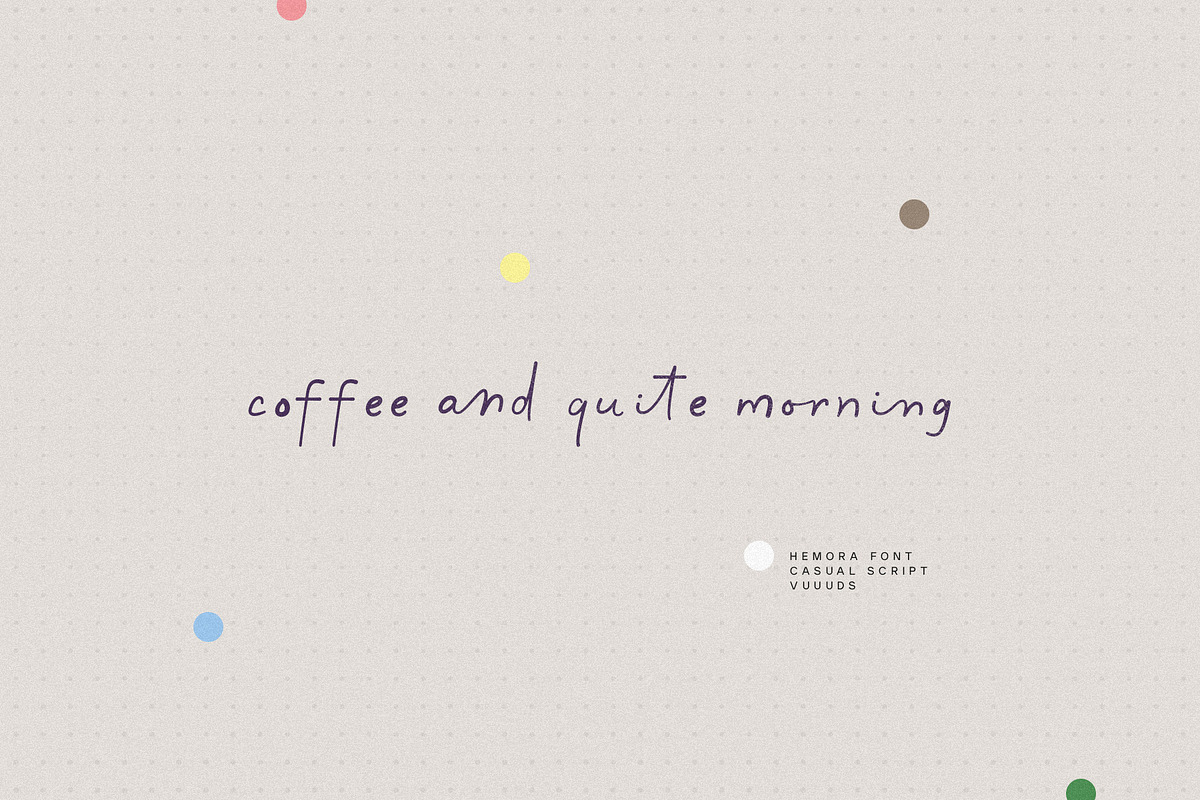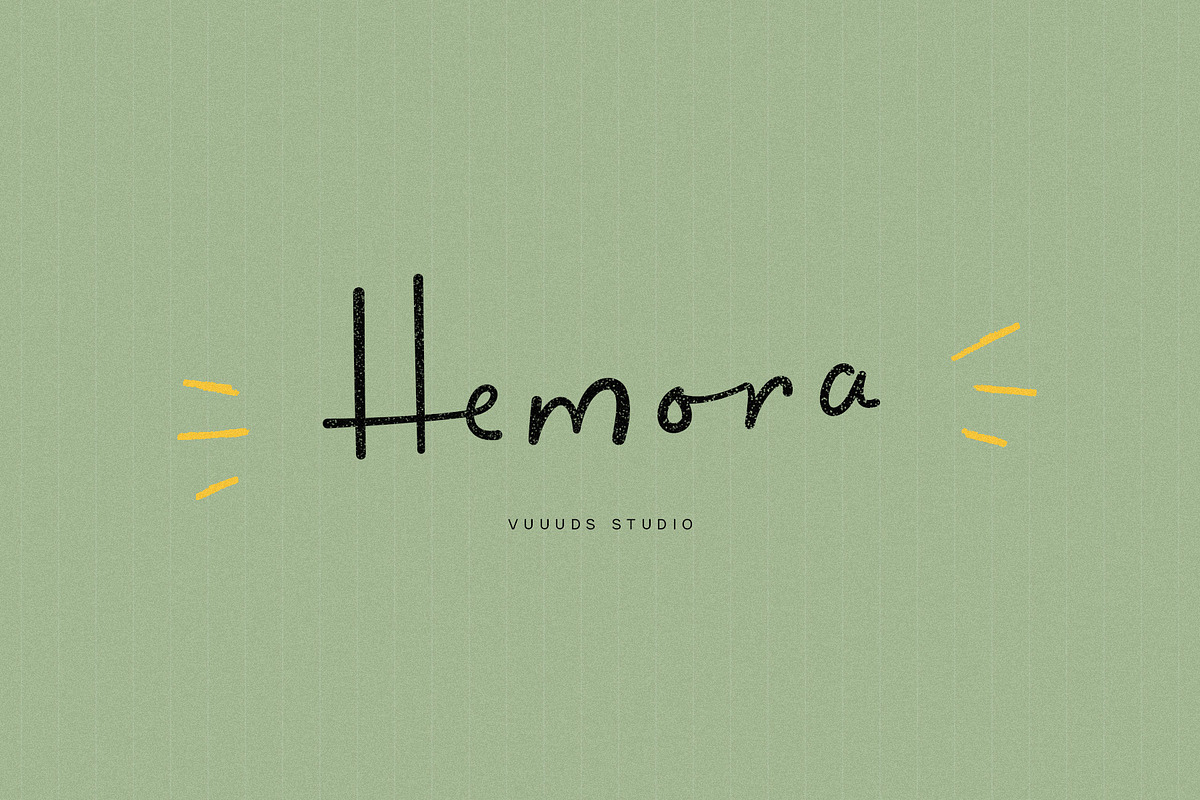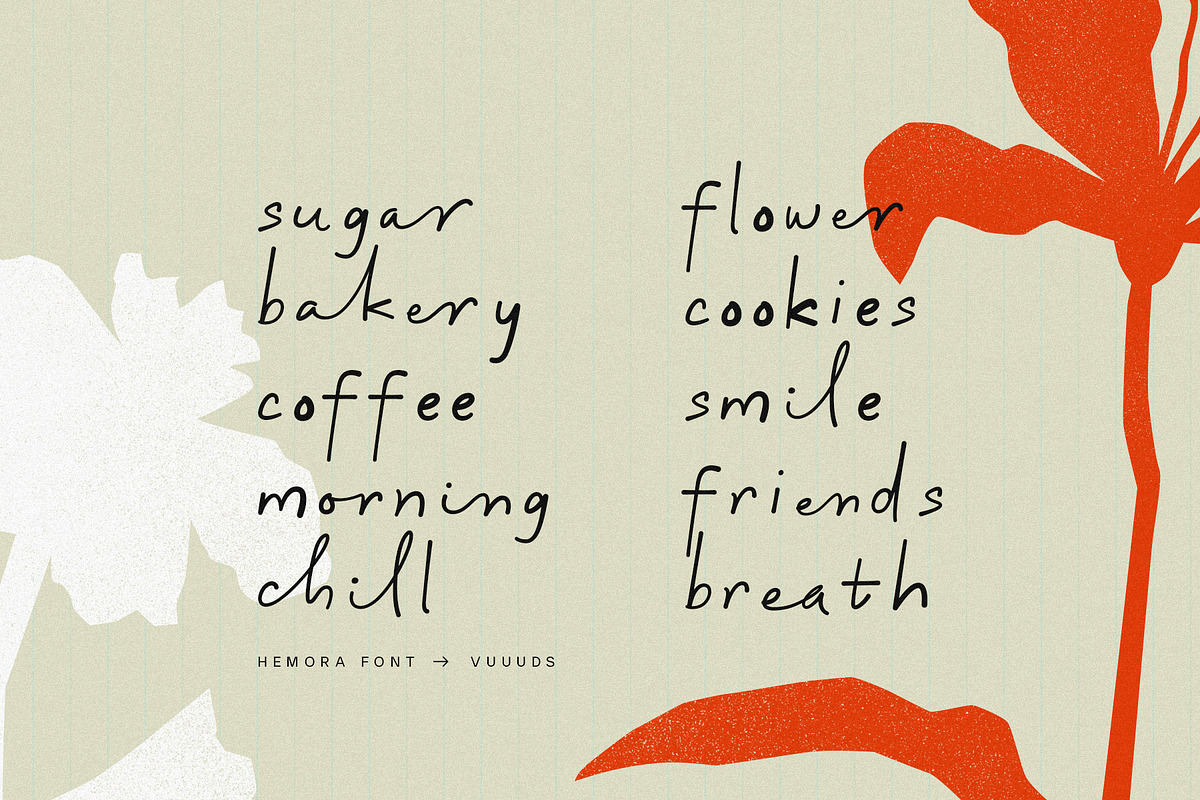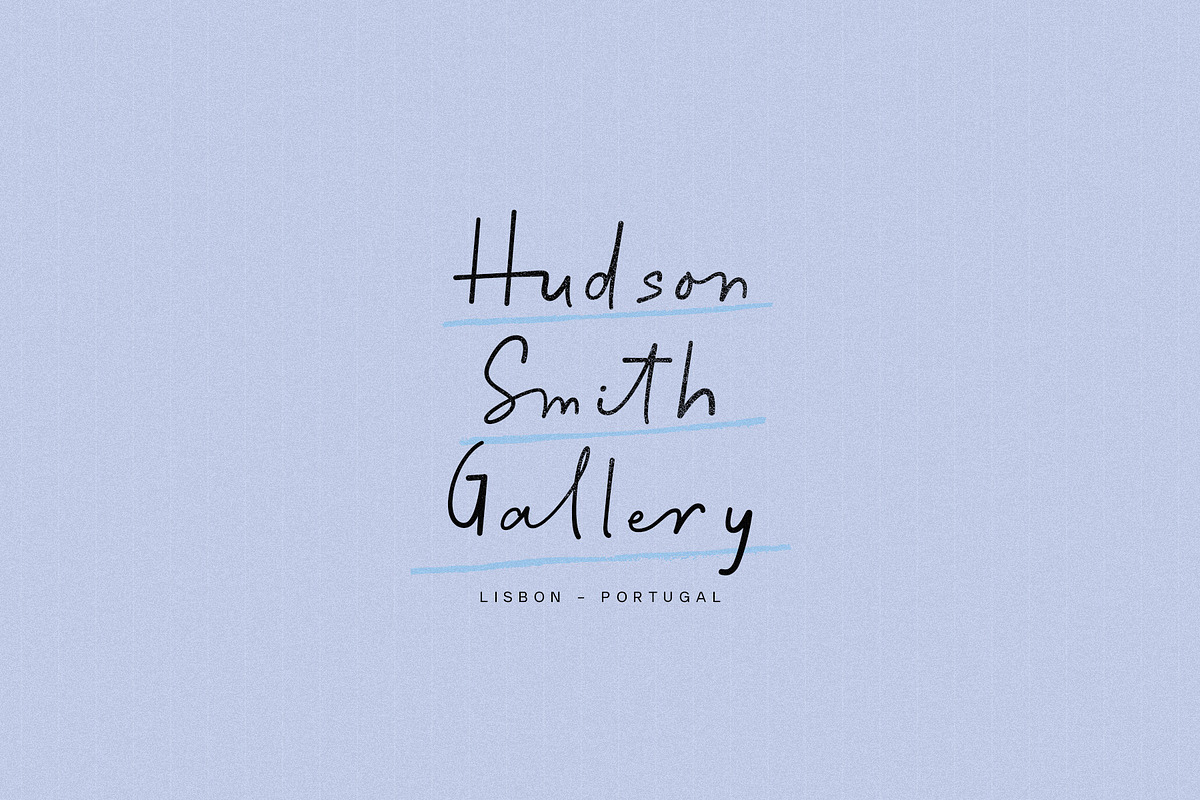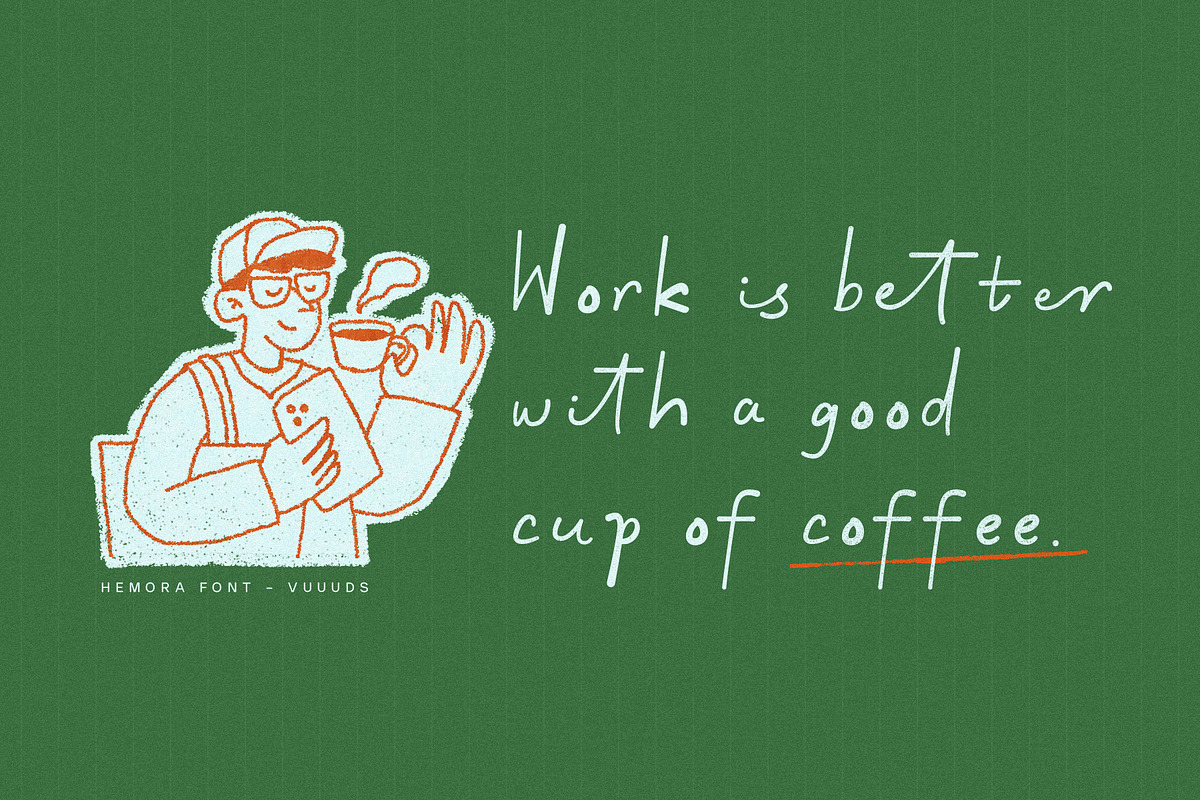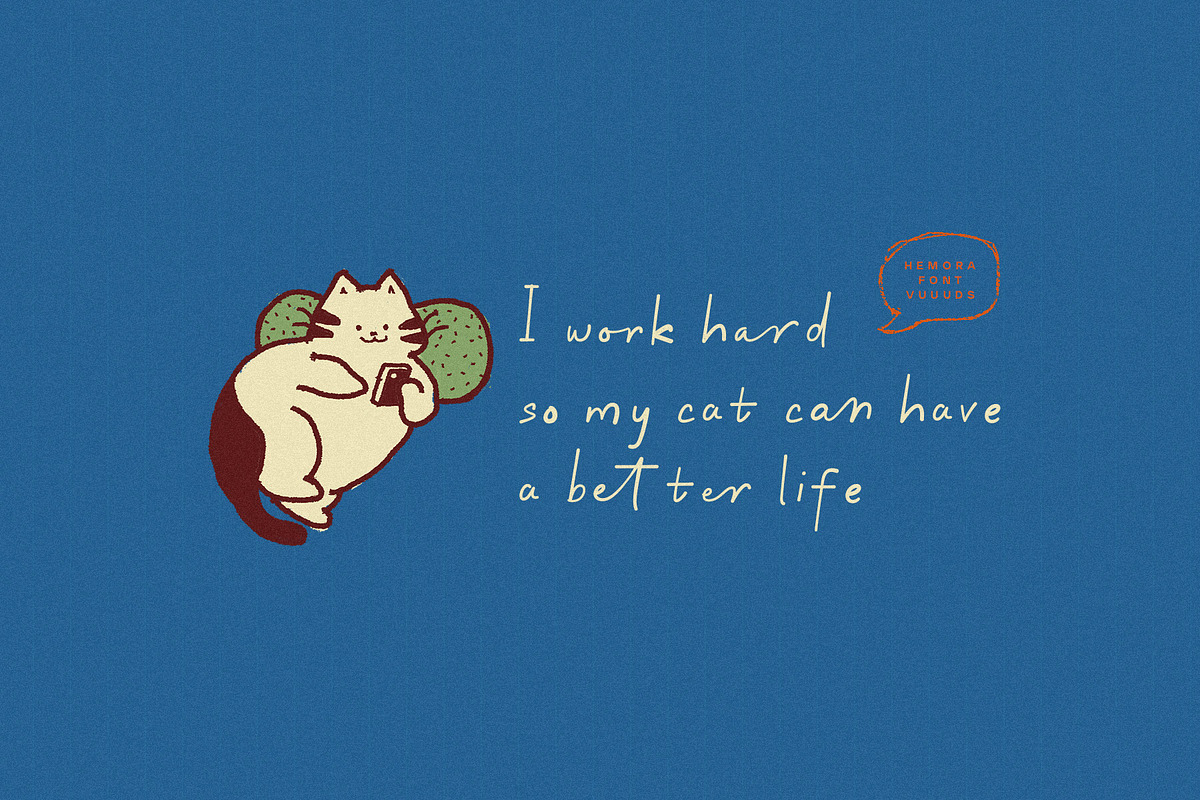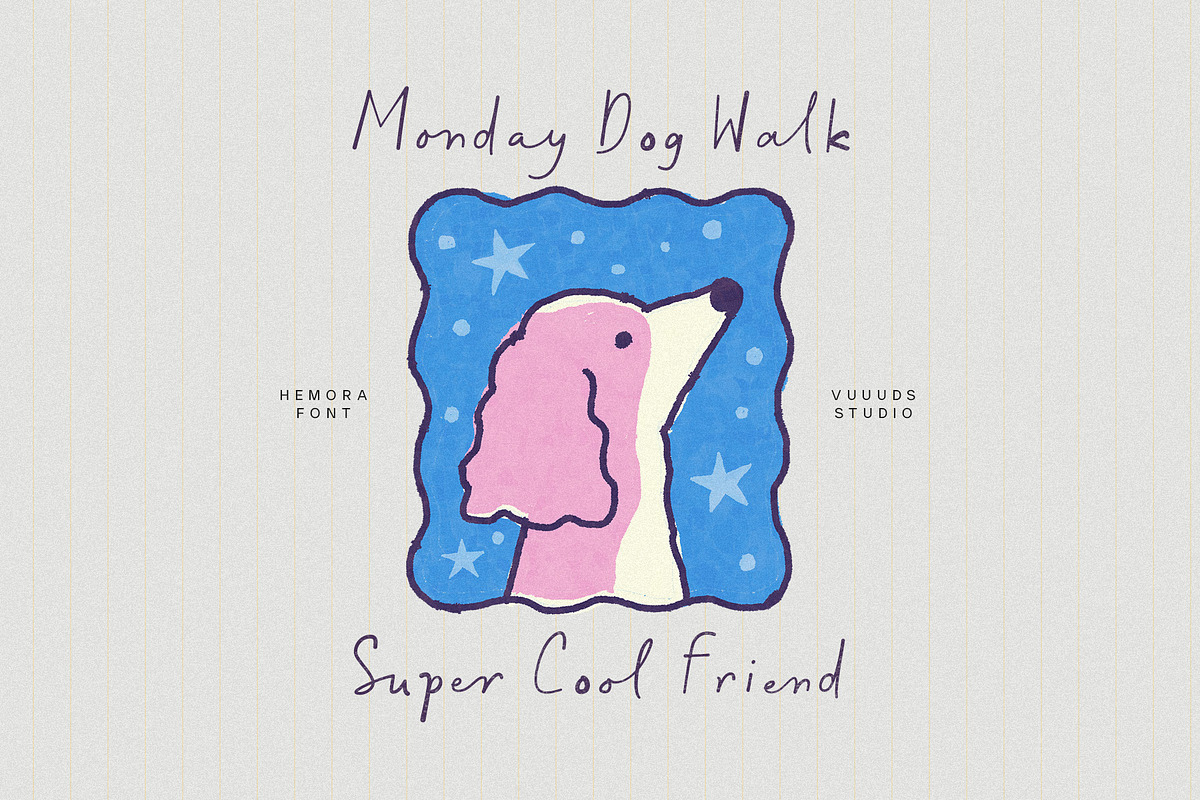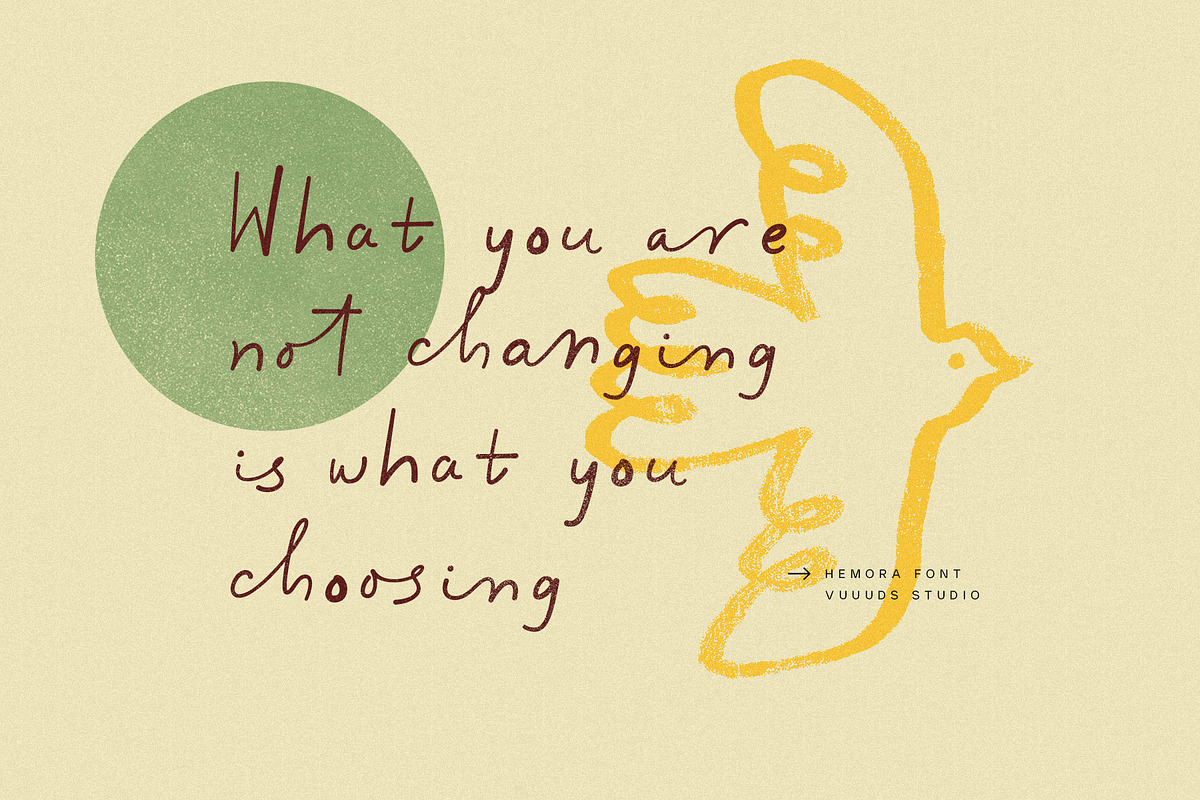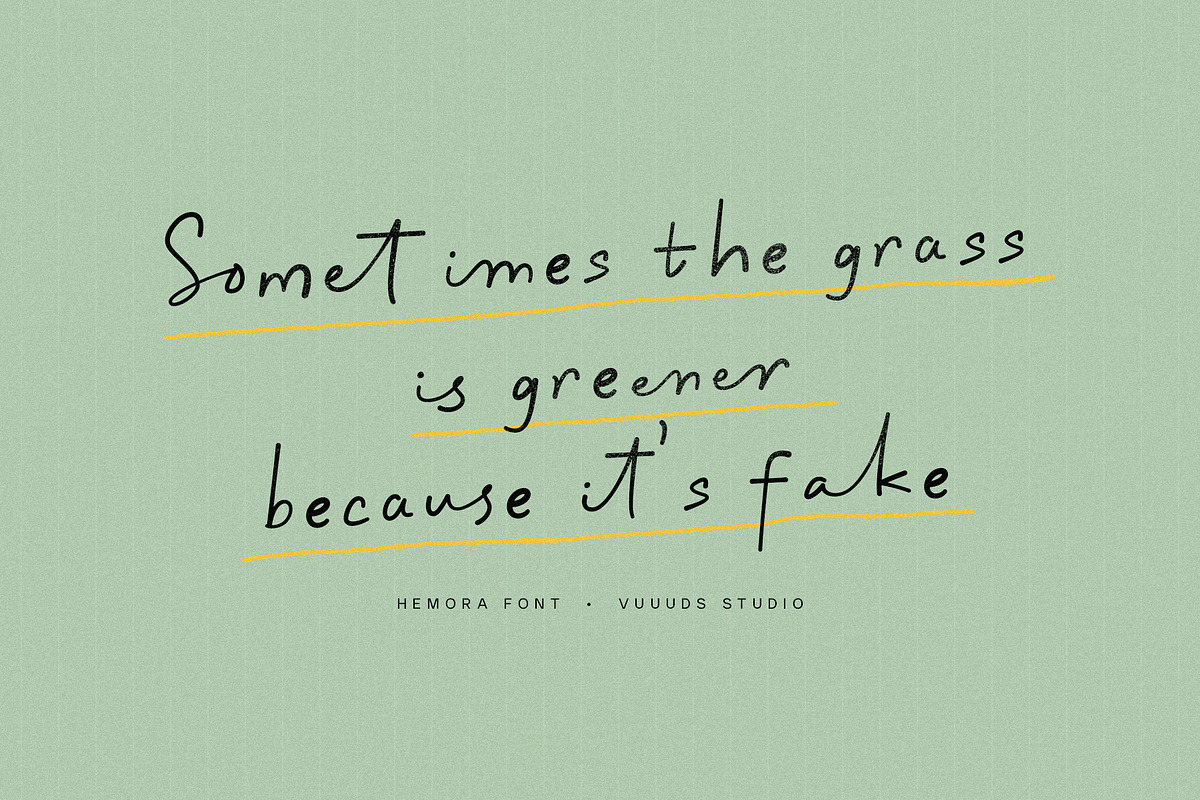
Hemora Font
Introducing Hemora Font!
Hemora is casual fun handwritten font, every single letters have been uniquely crafted. This font including beautiful alternate glyph. You can access the alternate glyph via Font Book (Mac user) or Windows Character Map (Windows user), I've been put the link tutorial inside the zip file.
Multi languages support: ÀÁÂÃÄÅĂÆÇÈÉÊËÌÍÎÏÐÑÒÓÔÕÖØÙÚÛÜŸÝ àáâãäåăæçèéêëìíîïðñòóôõöøùúûüýÿ ȚțȘș߀£¥©®™